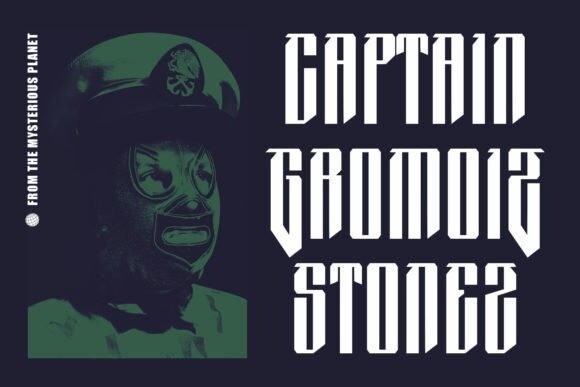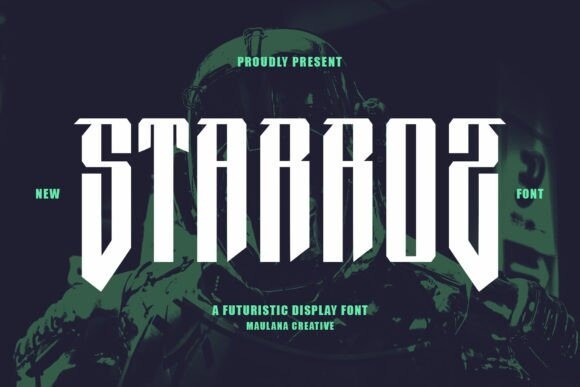
Starroz Font
Designer: Maulana Creative
Starroz Font is a sleek, modern font with clean, simple lines. It’s a futuristic sans serif style, making it perfect for bold headlines or digital designs. The minimal design gives it a fresh, sharp look, ideal for creative and tech-inspired projects.